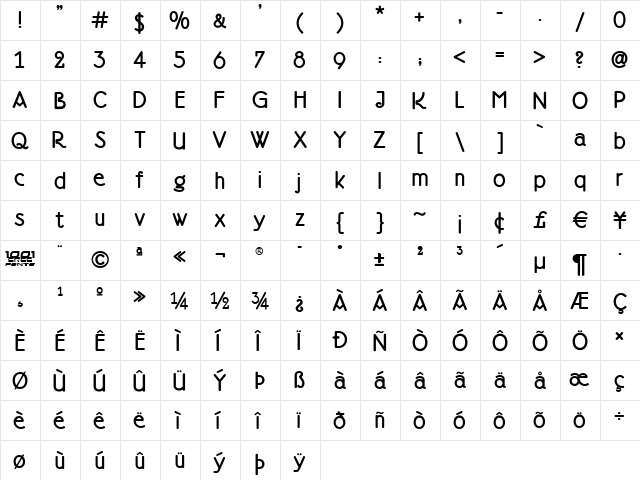
Doctor Jekyll NF Regular
Design Context for Doctor Jekyll NF Typeface
Doctor Jekyll NF is a composed and adaptable typeface that performs quietly and consistently across a wide range of design contexts.